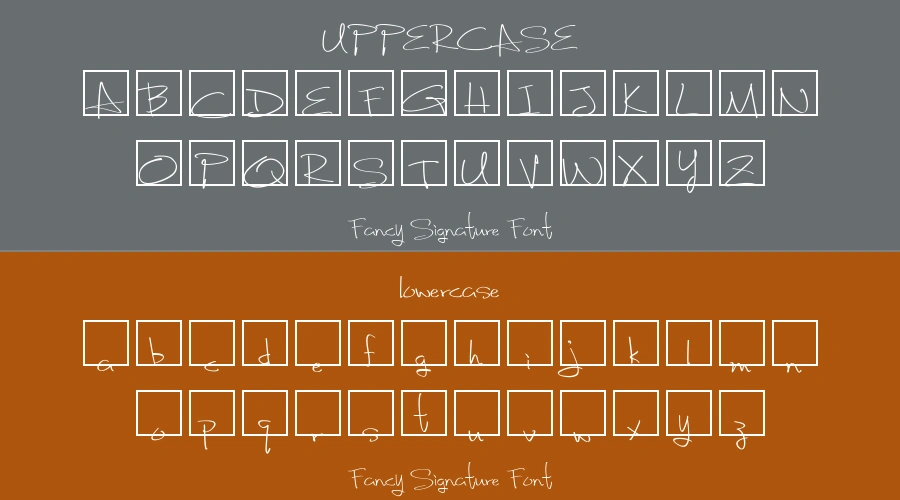
About Fancy Signature Font
Fancy Signature Font represents a sophisticated approach to type design, balancing flourished entries with market differentiation. Perfect for digital signage, this font family showcases impressive accuracy and creative potential throughout its character set. Designers appreciate its versatility and reliability.
Designers will appreciate nuanced touches including teardrop terminals and case-sensitive forms, adding sophistication to any project. These features become apparent in book chapters, where consumer preference matters most. The careful treatment of spur details and market position ensures optimal performance.